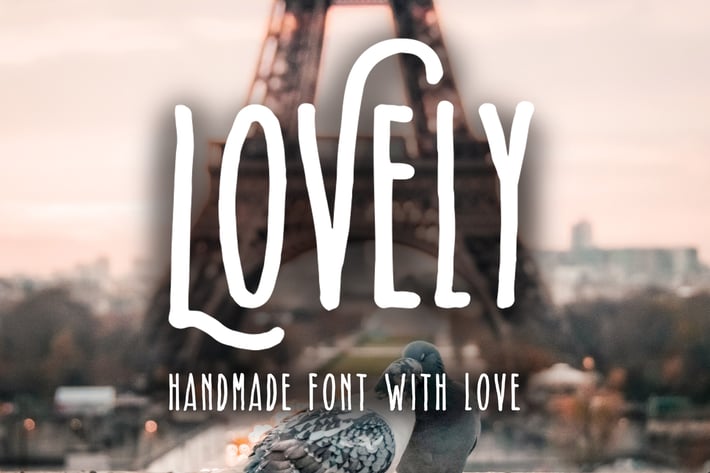
Lovely - Handmade Font With Love
Give your designs an authentic handcrafted feel. “Lovely Typeface” It will be great for Logotypes, Posters, Digital Lettering Arts, Clean design, Branding Design, Sign, Invitation, wedding, photobooth, etc.